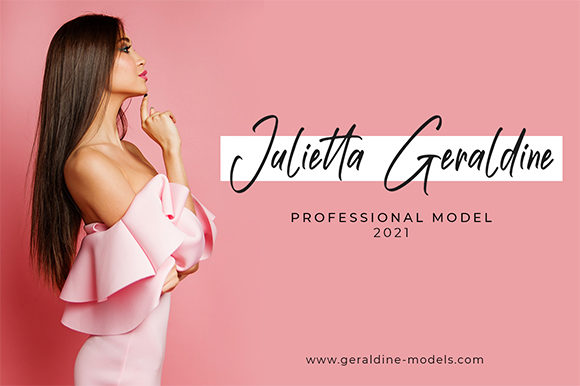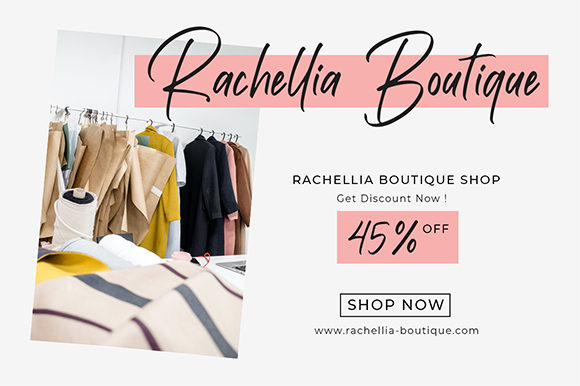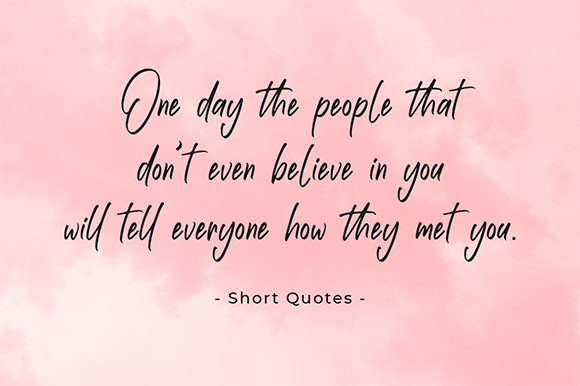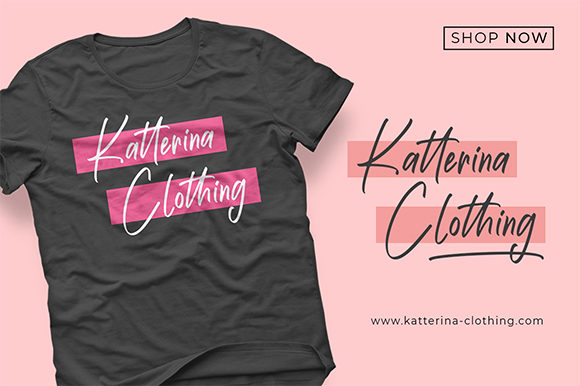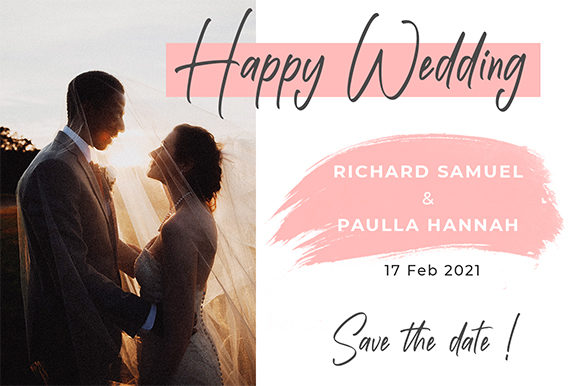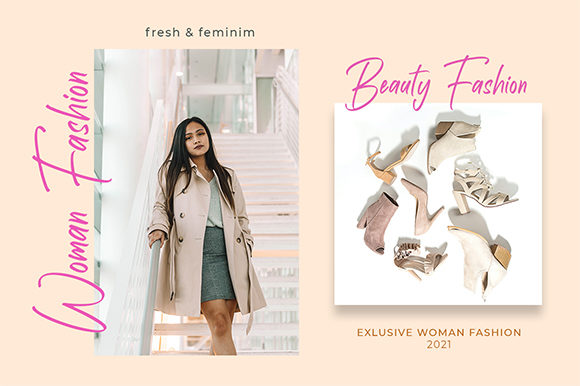
Discover the Charm of Hello Katterine Font
Have you ever found yourself scribbling down ideas in a notebook, and suddenly, a beautiful handwritten font pops out? It’s those moments of creative freedom that spark our imagination and inspire us to create something truly unique. The Hello Katterine Font is one such font that embodies the essence of raw authenticity and elegance, making it perfect for designers who want to add a personal touch to their designs.
This sweet and simple handwritten font is designed to bring out the best in your designs. Whether you’re a graphic designer, a writer, or a creative entrepreneur, Hello Katterine Font is sure to captivate your audience with its charming and elegant feel. Its versatility makes it an ideal choice for a variety of projects, from branding and marketing materials to digital products and print materials.
Hello Katterine Font Key Features
- Font Family: Hello Katterine Font is a modern script font designed for various purposes, including invitations, branding, and editorial content.
- Character Count: The font includes a vast character set, covering over 700 glyphs, including uppercase and lowercase letters, numbers, and special characters.
- Unique Characteristics: Hello Katterine Font features elegant, handwritten strokes, and a unique, artistic flair that adds a touch of sophistication to any design.
Hello Katterine Font Review
First off, let’s talk about what works well in this font. ✨ The bold and italic variations are perfect for adding some flair to headings and emphasis. The font’s unique, handwritten style gives it a personal touch that’s hard to find in more generic fonts. Additionally, the font’s open-source nature makes it accessible to designers of all levels.
- ✨ Unique, handwritten style that adds a personal touch
- ✨ Bold and italic variations for emphasis
- ✨ Open-source and accessible to designers of all levels
However, there are some limitations to consider. ⚠️ The font may not be suitable for body text, as it can be a bit difficult to read in smaller sizes. Additionally, the font’s irregularities can sometimes make it challenging to pair with other fonts. Finally, the font’s lack of ligatures can make it look a bit rough around the edges.
- ⚠️ May not be suitable for body text due to readability issues
- ⚠️ Can be challenging to pair with other fonts due to irregularities
- ⚠️ Lack of ligatures can make it look rough
Overall, I think the Hello Katterine Font is a great choice for designers who want to add a touch of personality to their projects. While it may not be suitable for every project, its unique style and open-source nature make it a valuable addition to any designer’s toolkit.
The Hello Katterine Font is ideal for:
- Designing invitations and greeting cards.
- Creating social media graphics and posts.
- Adding a touch of elegance to presentations and documents.
Alternatives to Hello Katterine Font
Playfair Display is a high-end serif font ideal for luxury brands and high-end publications. It’s a classic choice for designers who want to evoke elegance and sophistication.
Comparison to Hello Katterine Font: While both fonts are elegant and sophisticated, Playfair Display has a more classic and traditional feel, whereas Hello Katterine Font has a more modern and whimsical touch.
Can I customize Hello Katterine with my own styles and settings?
Hello Katterine is a highly customizable font, with advanced features such as OpenType ligatures, stylistic sets, and positional forms. Designers can use font editing software, such as FontLab or Glyphs, to customize the font and create new styles and settings.